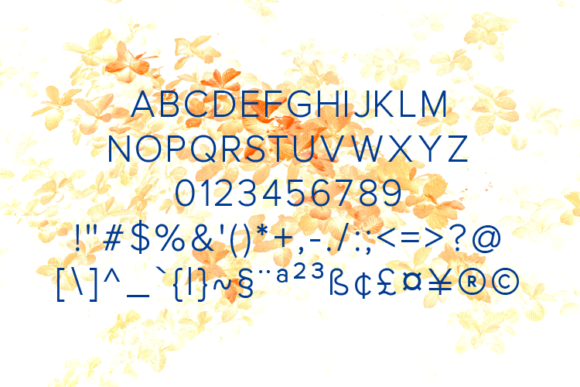
Gerkco Regular Font: Elevate Your Designs with a Touch of Modern Elegance
In the world of typography, fonts play a pivotal role in defining the aesthetic and tone of any design project. Whether you’re a seasoned designer or a crafty DIY enthusiast, finding the right font can be a game-changer. This is where Gerkco Regular comes into play—a clean, elegant, and modern sans serif font that is poised to transform your creative endeavors. In this article, we’ll dive deep into the features of Gerkco Regular and explore how it can be a valuable addition to your design toolkit.
The Essence of Gerkco Regular
Gerkco Regular is characterized by its sleek lines and contemporary feel. This sans serif font boasts a simplicity that makes it incredibly versatile, suitable for a wide array of projects. From logos and social media posts to book covers and more, Gerkco Regular offers a balanced and modern look that can elevate your designs to new heights.
Key Features of Gerkco Regular Font
- Clean and Elegant Design: The font’s clean and elegant design ensures that your text remains readable while adding a touch of sophistication to your project.
- Modern Feel: Gerkco Regular’s modern aesthetic makes it perfect for projects that require a contemporary edge.
- Versatility: Its sans serif nature and balanced look make it versatile enough to be used across various platforms and design materials.
- Easy to Read: The clear and straightforward design of Gerkco Regular ensures readability, making it ideal for both digital and print materials.
Applications of Gerkco Regular
The applications of Gerkco Regular are vast and varied. Here are some of the most impactful ways you can utilize this elegant font:
- Logo Design: A logo is often the first impression of a brand. Gerkco Regular, with its modern and clean lines, can help create a memorable and impactful logo.
- Social Media Posts: Stand out on social media platforms with eye-catching posts designed using Gerkco Regular. Its elegance and modernity are sure to capture attention.
- Book Covers: For authors and publishers, Gerkco Regular can add a unique and contemporary look to book covers, making them more appealing to potential readers.
- Marketing Materials: From brochures to flyers, Gerkco Regular can give your marketing materials a professional and modern look.
Why Choose Gerkco Regular?
With numerous fonts available, why should Gerkco Regular be your go-to choice? Here are a few compelling reasons:
- Universal Appeal: Its clean and modern design appeals to a wide audience, making it suitable for projects targeting diverse demographics.
- Easy Integration: Gerkco Regular can seamlessly integrate with your existing design elements, ensuring a cohesive look.
- Time-Saving: With a font as versatile as Gerkco Regular, you can save time by having a single font that works across multiple projects.
Tips for Using Gerkco Regular Effectively
To make the most out of Gerkco Regular, consider the following tips:
- Pair it Wisely: While Gerkco Regular is stunning on its own, pairing it with complementary fonts can add depth and interest to your designs.
- Experiment with Sizes: Don’t be afraid to experiment with different font sizes to create visual hierarchy and emphasize key points.
- Play with Colors: Gerkco Regular looks great in various colors. Experiment with different color schemes to find the one that best suits your project’s mood.
Gerkco Regular is more than just a font; it’s a design statement. Its clean, elegant, and modern characteristics make it an invaluable asset for designers and crafters looking to elevate their projects. Whether you’re aiming to create stunning logos, captivating social media posts, or unique book covers, Gerkco Regular offers the perfect blend of style and functionality. Embrace the modern feel of Gerkco Regular and watch your designs transform with a touch of elegance and sophistication.